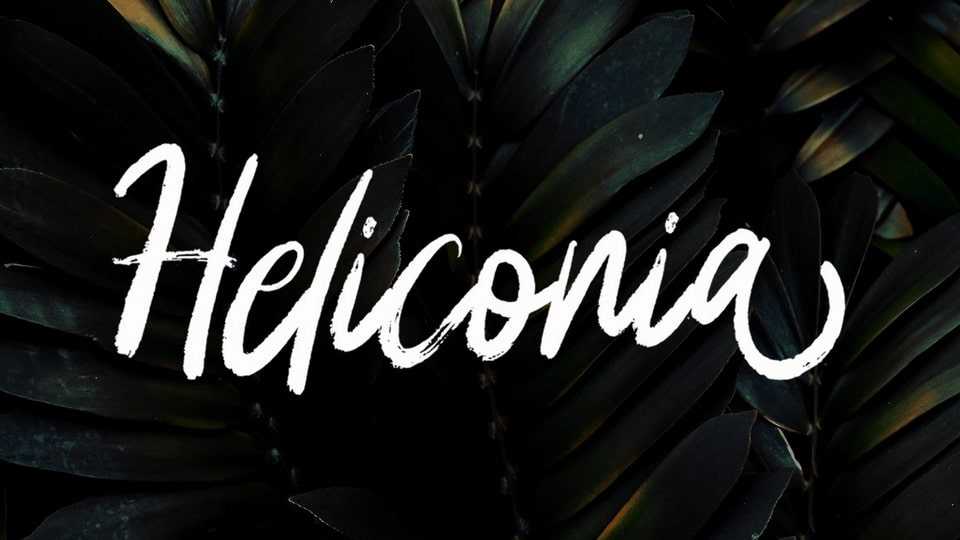
Download Heliconia font, a hand brushed script typeface with a unique feel. This fantastic font is best suited for headlines of all sizes, as well as for blocks of text.